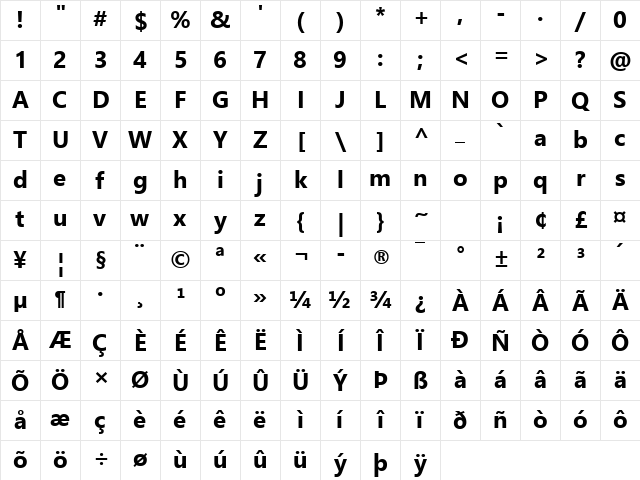
Complete Leelawadee UI Negreta glyph index. Displaying only characters natively supported by Leelawadee UI Negreta font.
Leelawadee UI is a composed and adaptable typeface that performs quietly and consistently across a wide range of design contexts. Its bold stroke weight gives it real presence on the page.